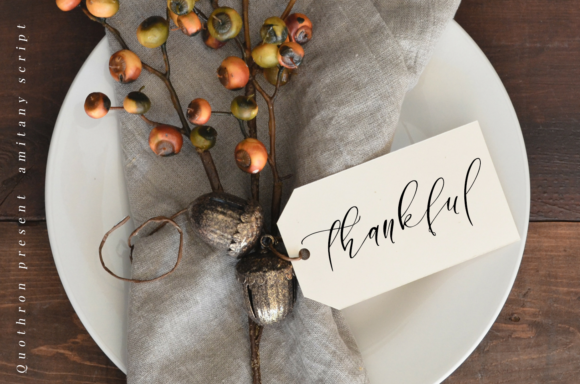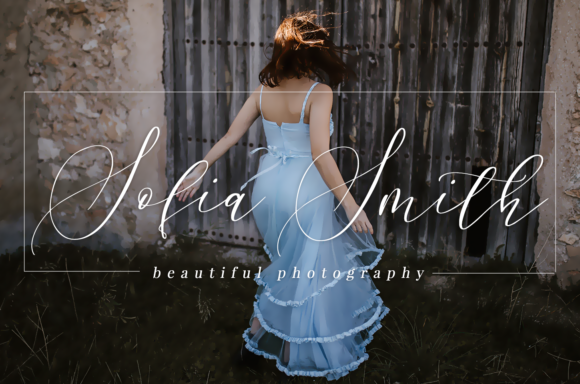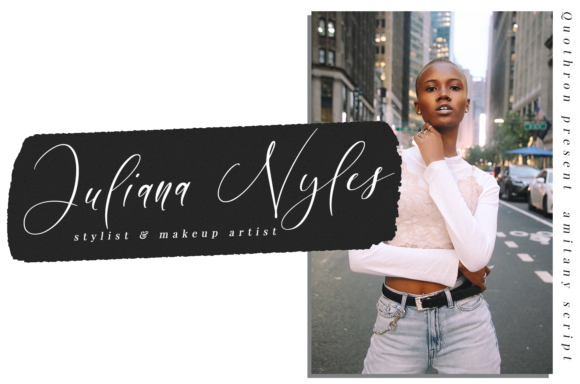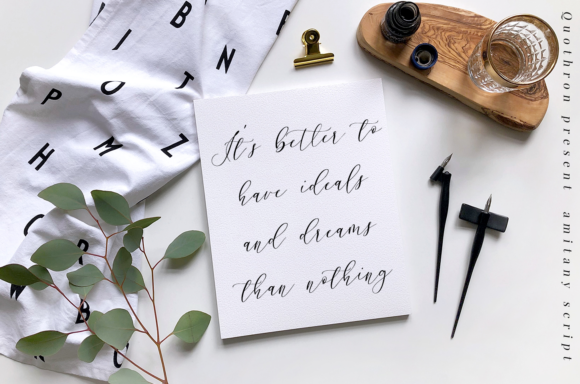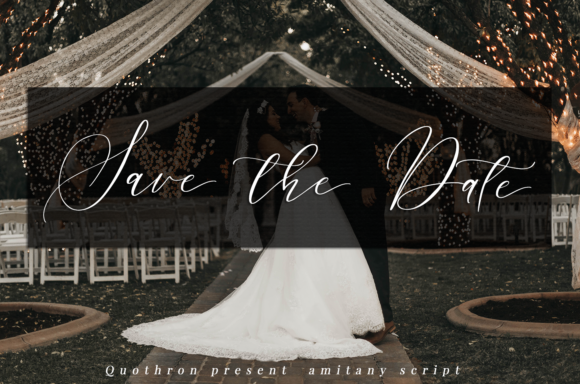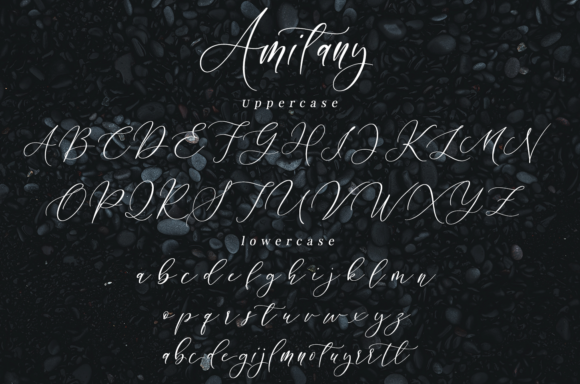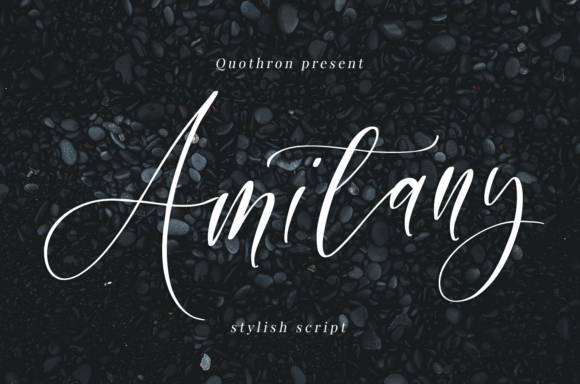
Amitany Font: A Beautiful and Versatile Addition to Your Craft Library
As a designer or crafter, you’re always on the lookout for fonts that can elevate your projects and make them stand out. If you’re searching for a font that’s both lovely and strong, look no further than Amitany. This stunning font is a great addition to any craft library, and in this article, we’ll explore what makes it so special.
What is Amitany Font?
Amitany is a beautiful, modern font that’s perfect for a wide range of crafting and design projects. With its clean lines and elegant curves, Amitany feels equally lovely and strong, making it an excellent choice for anyone looking to add a touch of sophistication to their work.
Key Features of Amitany Font
So, what makes Amitany font so special? Here are just a few of its key features:
- Unique and Elegant Design: Amitany’s design is both unique and elegant, making it perfect for projects that require a touch of sophistication.
- Clean Lines and Curves: The font features clean lines and curves that give it a modern and fresh feel.
- Versatile: Amitany is a versatile font that can be used for a wide range of projects, from crafting and scrapbooking to graphic design and digital art.
- Easy to Read: Despite its elegant design, Amitany is easy to read, making it perfect for projects that require a clear and legible font.
Uses for Amitany Font
Amitany font is perfect for a wide range of crafting and design projects, including:
- Scrapbooking: Amitany’s elegant design makes it perfect for scrapbooking projects, where you want to add a touch of sophistication to your pages.
- Crafting: Whether you’re making cards, gift tags, or other crafts, Amitany is a great choice for adding a personal touch to your projects.
- Graphic Design: Amitany’s clean lines and curves make it a great choice for graphic design projects, such as logos, brochures, and posters.
- Digital Art: Amitany can also be used in digital art projects, such as illustrations, paintings, and mixed media art.
Why Choose Amitany Font?
So, why should you choose Amitany font for your next project? Here are just a few reasons:
- It’s Versatile: Amitany can be used for a wide range of projects, making it a great addition to any craft library.
- It’s Elegant: Amitany’s elegant design makes it perfect for projects that require a touch of sophistication.
- It’s Easy to Read: Despite its elegant design, Amitany is easy to read, making it perfect for projects that require a clear and legible font.
- It’s Unique: Amitany’s unique design sets it apart from other fonts, making it a great choice for projects that require a bit of personality.
In conclusion, Amitany font is a beautiful and versatile addition to any craft library. With its elegant design, clean lines and curves, and ease of readability, Amitany is perfect for a wide range of crafting and design projects. Whether you’re a designer, crafter, or artist, Amitany is a great choice for adding a touch of sophistication to your work. So why not give Amitany a try and see what amazing projects you can create?